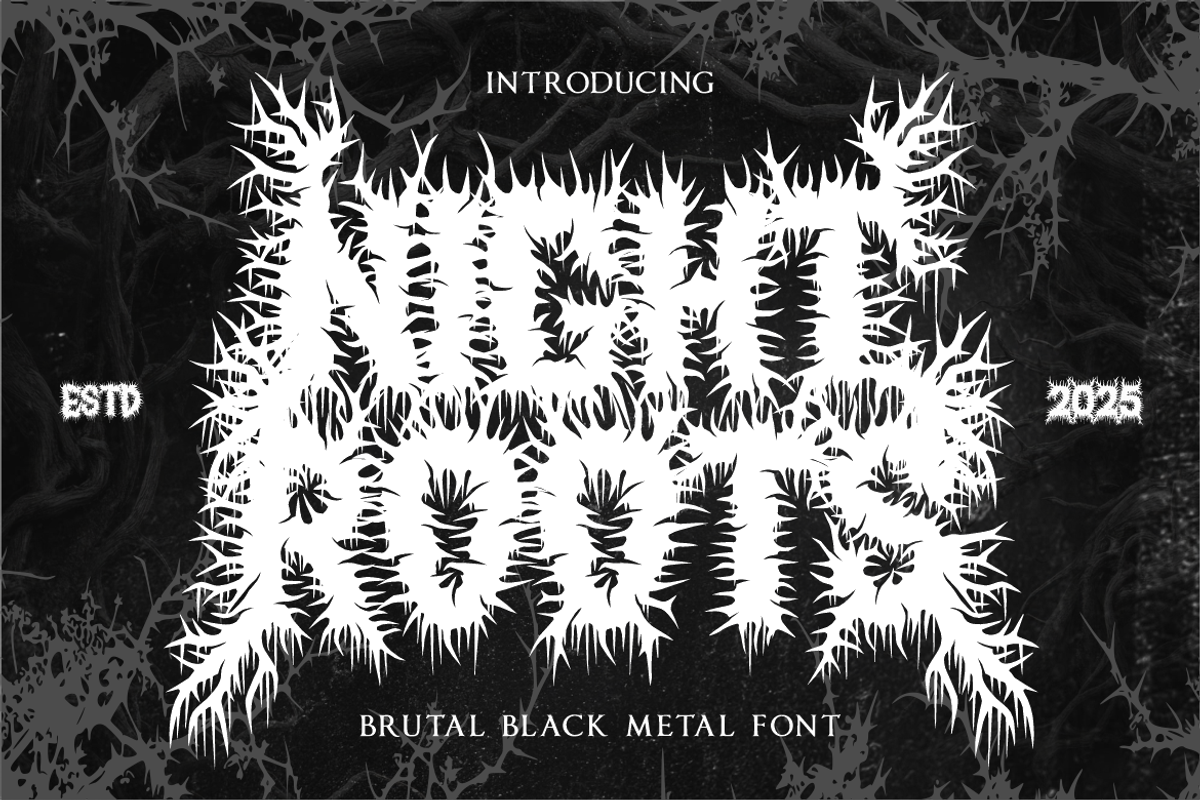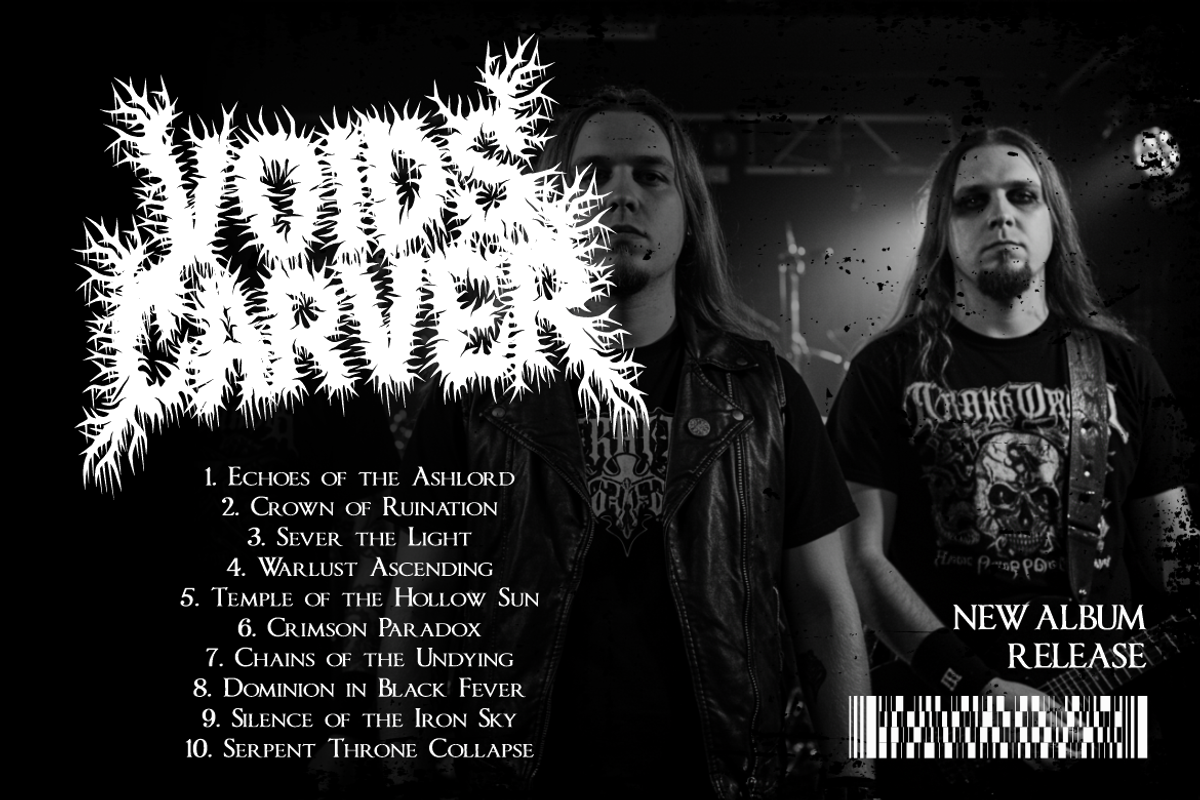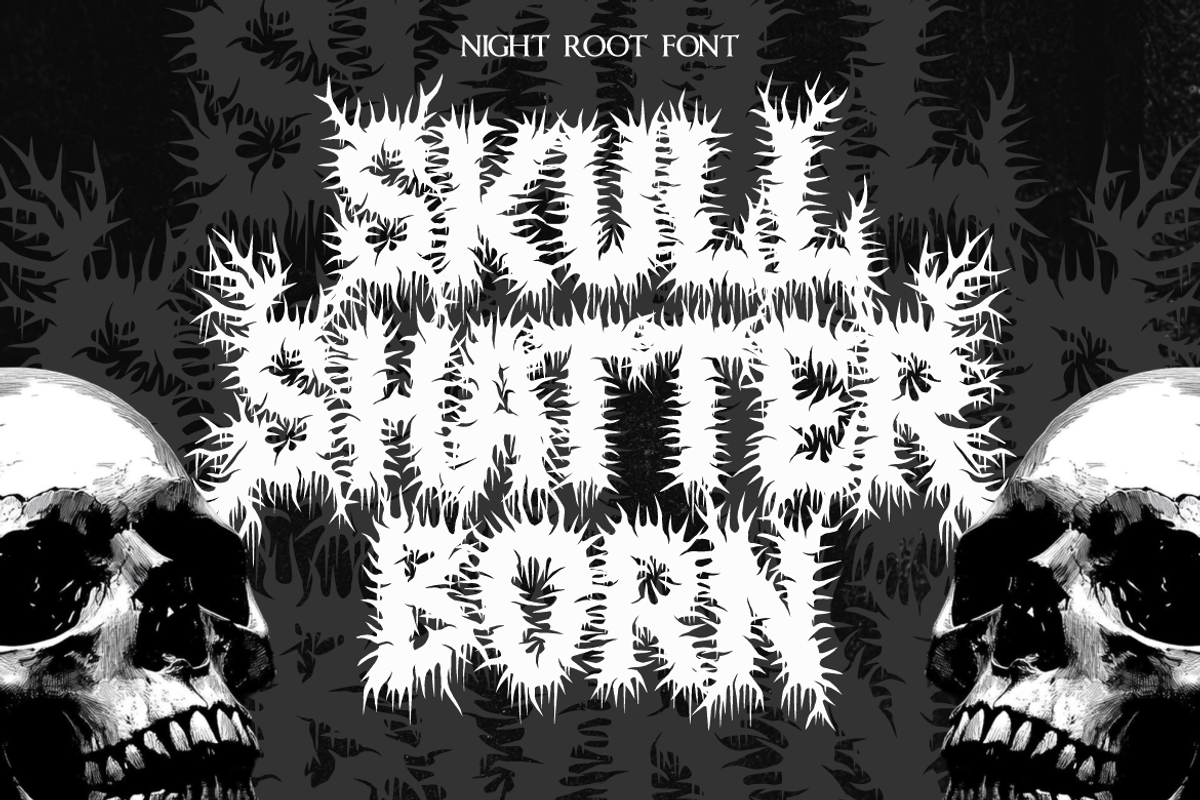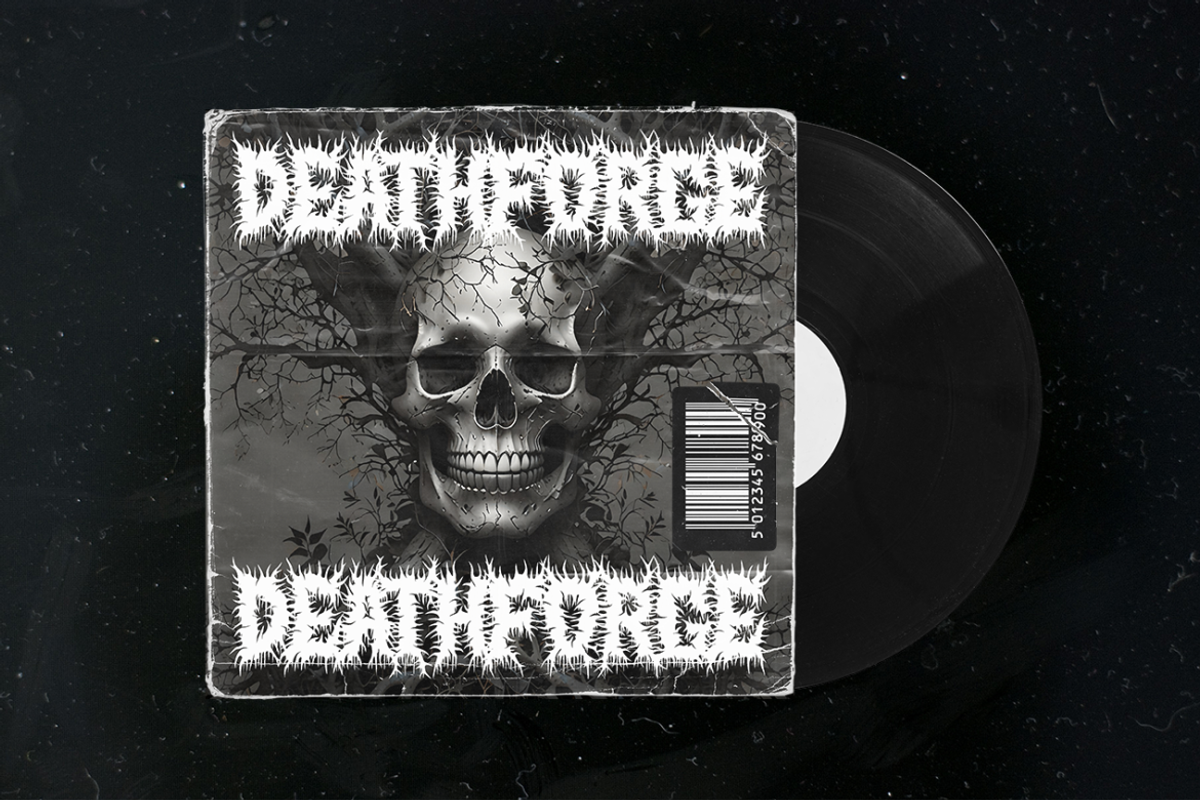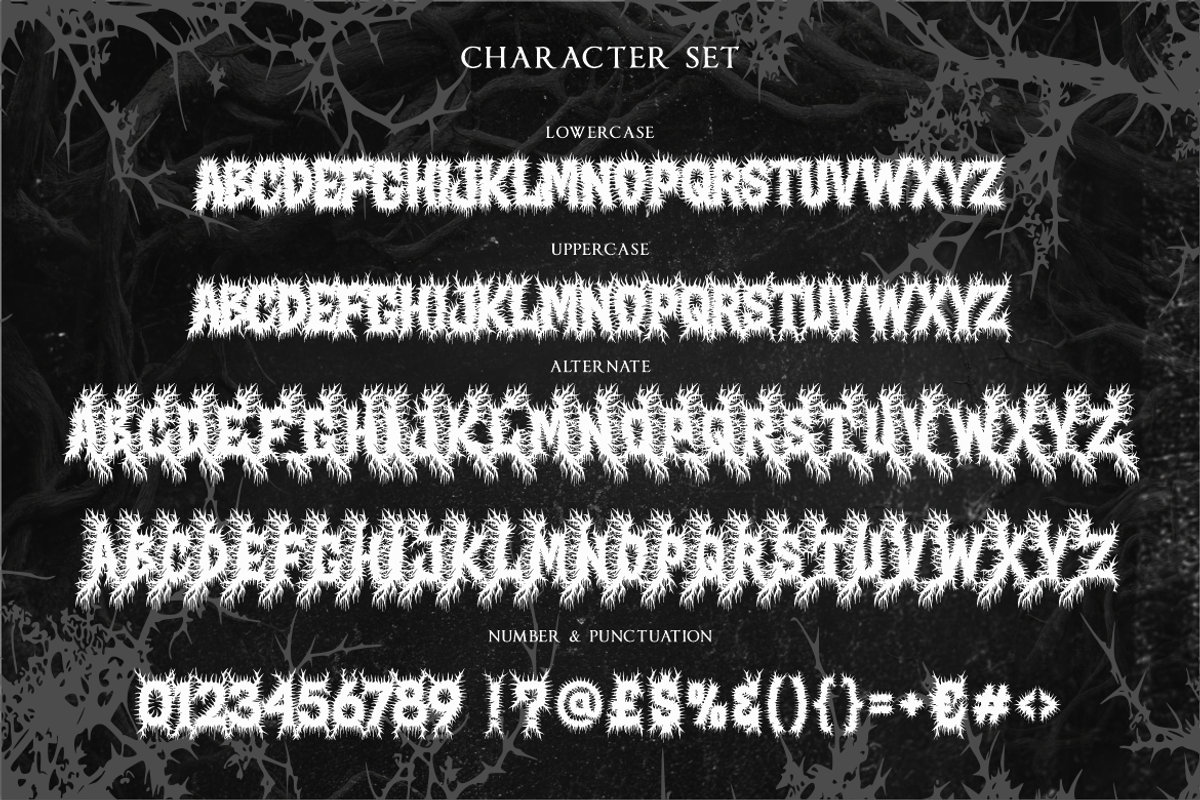
Night Roots Brutal Black Metal Font
Night Roots Brutal Black Metal Font is a highly aggressive display typeface built to represent the raw spirit of extreme music culture. The letterforms are tall, dense, and heavily textured with sharp thorn-like extensions that grow outward from every stroke. Each character feels organic and chaotic, as if shaped by roots, spikes, and twisted branches. The weight is bold and dominant, while the edges appear rough and irregular, creating a wild visual rhythm. Counters are narrow and compressed, enhancing the claustrophobic and intense atmosphere. The overall construction favors visual force over softness, ensuring maximum impact at large sizes. Despite its brutal nature, spacing remains controlled, allowing words to stay readable within logo and headline contexts.
The style strongly reflects black metal, dark metal, death metal, and hardcore aesthetics. It feels dark, extreme, and hostile, yet intentionally crafted rather than random. This font fits perfectly for band logos, music branding, album titles, merchandise, posters, and underground event promotions. It also works well for horror-themed designs, dark fantasy covers, film titles, and experimental editorial layouts. Night Roots Brutal Black Metal Font supports uppercase, lowercase, numbers, punctuation, and alternates, giving designers flexibility for expressive compositions. The aggressive personality makes it unsuitable for body text, but ideal for statements that demand attention. Night Roots Brutal Black Metal Font helps brands and artists communicate rebellion, darkness, and power through typography. It is designed for creatives who want their visuals to feel uncompromising, raw, and unforgettable.